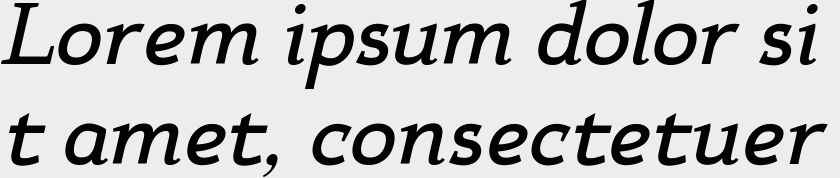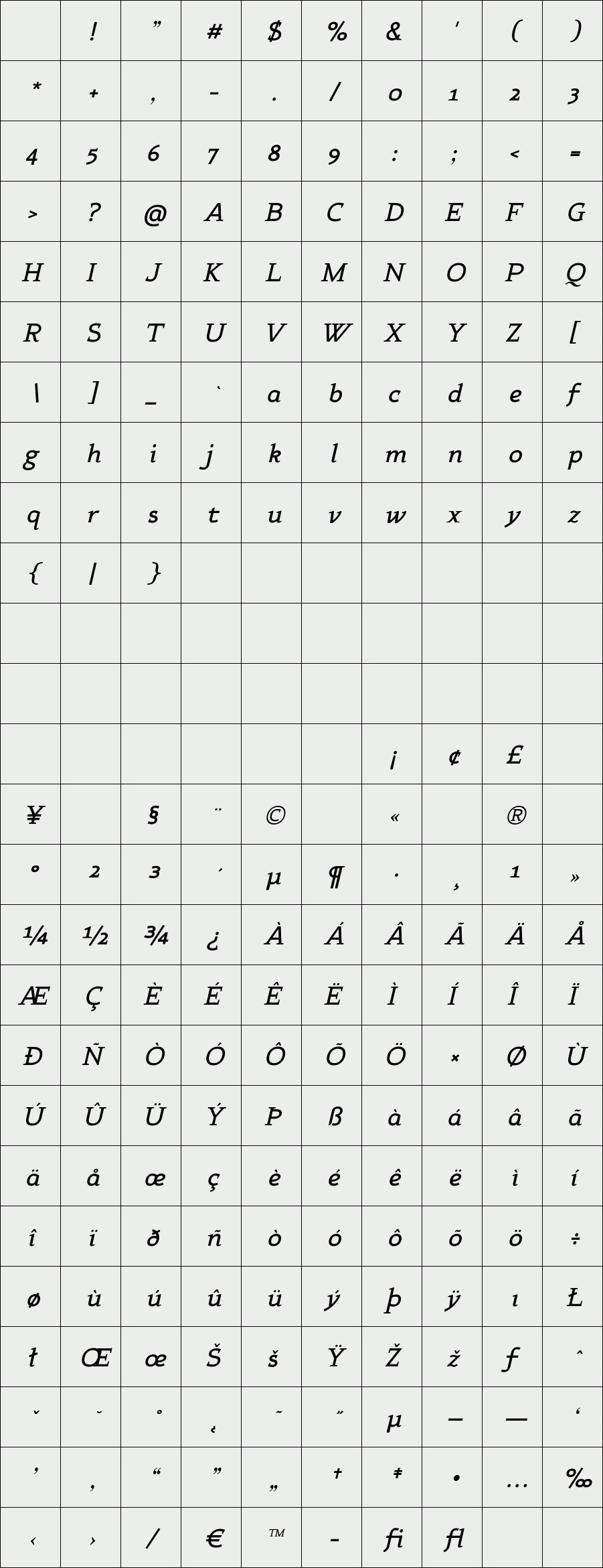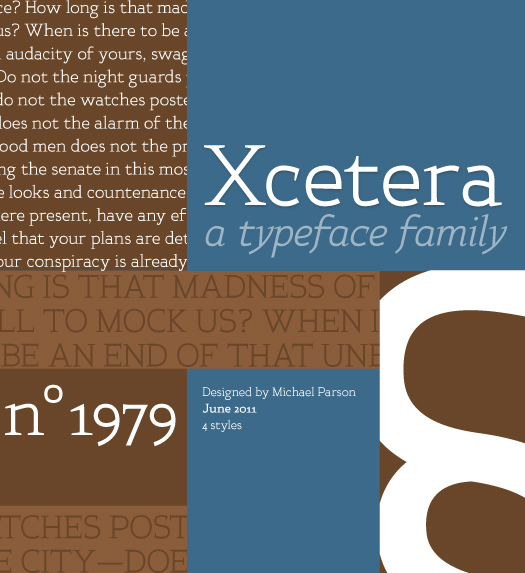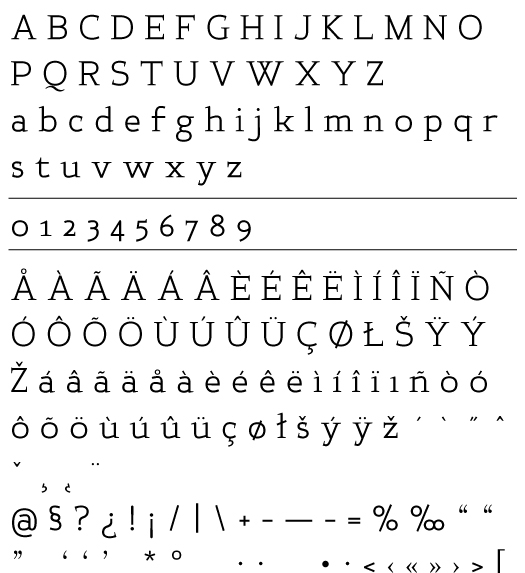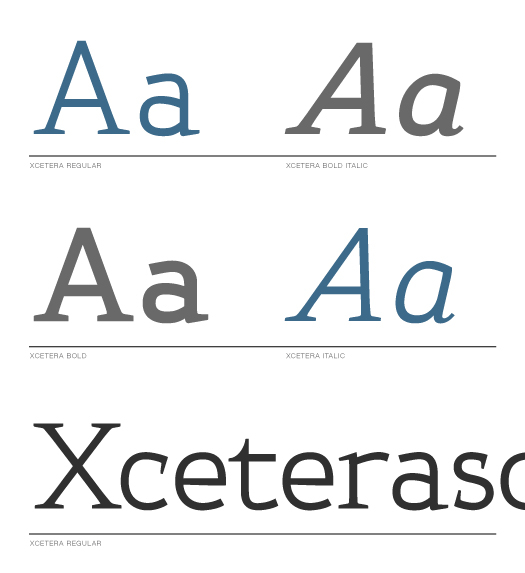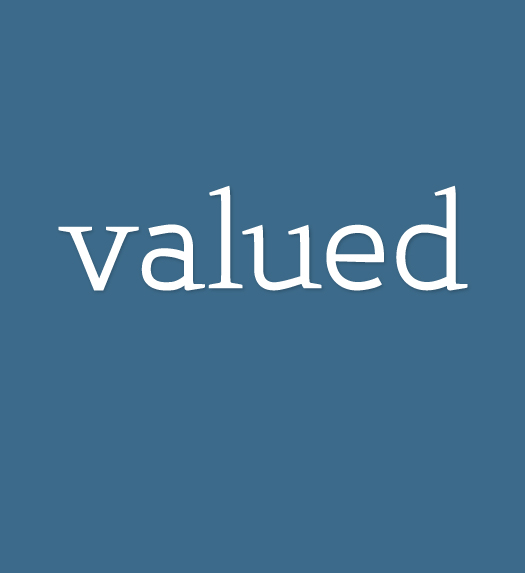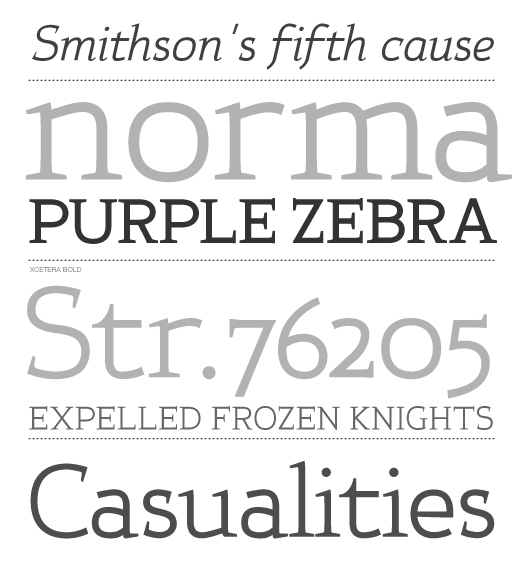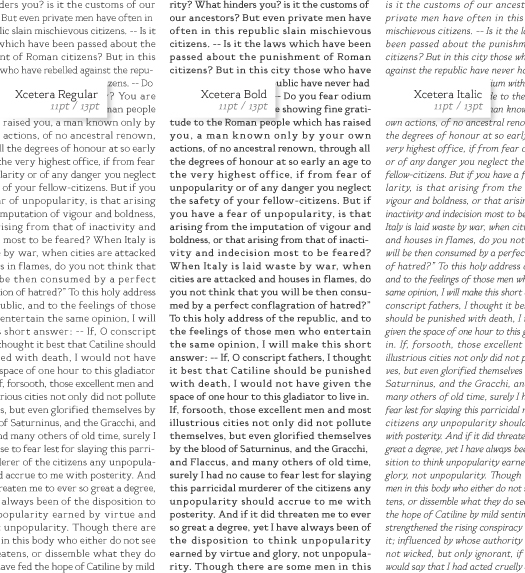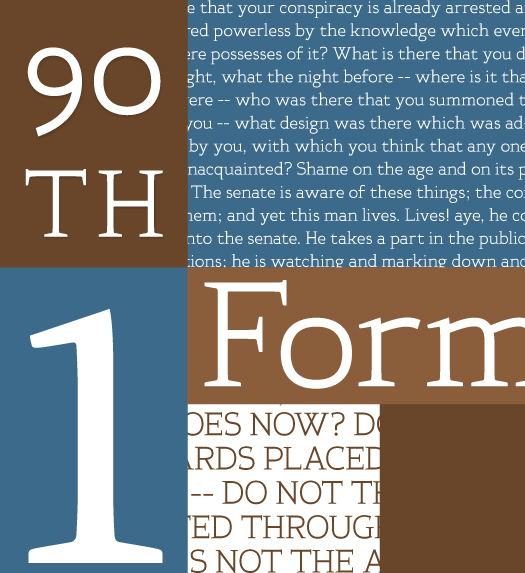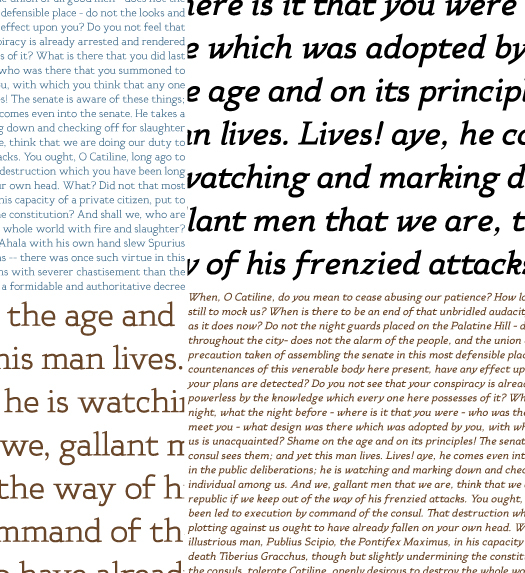
Xcetera
/ Xcetera bold italic
Work for the Xcetera typeface started with the desire to create a classical serif design but using the less contrasted stroke thickness found in a many sans serif designs.